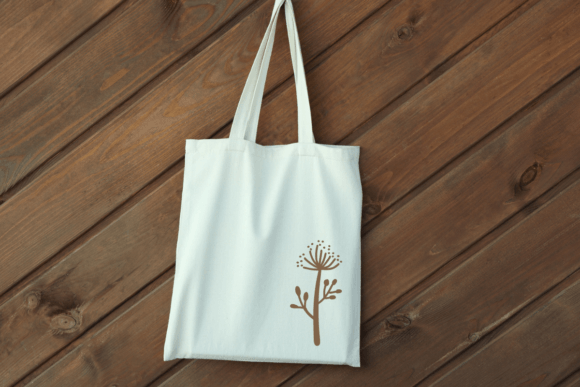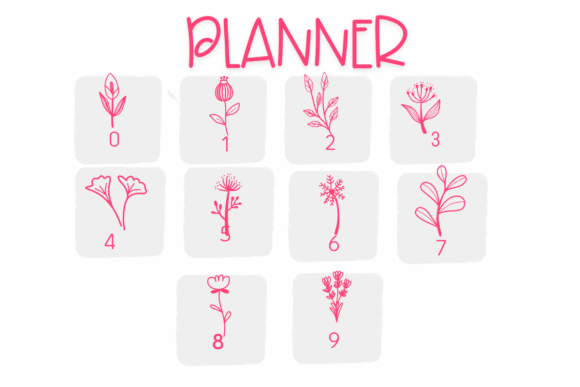
Planner Flower Font
Planner Flower is a cute dingbats font with a lovely theme. This font can enhance your creative projects such as wedding invitations, DIY, crafts, decorations, logos, and many other creative ideas.